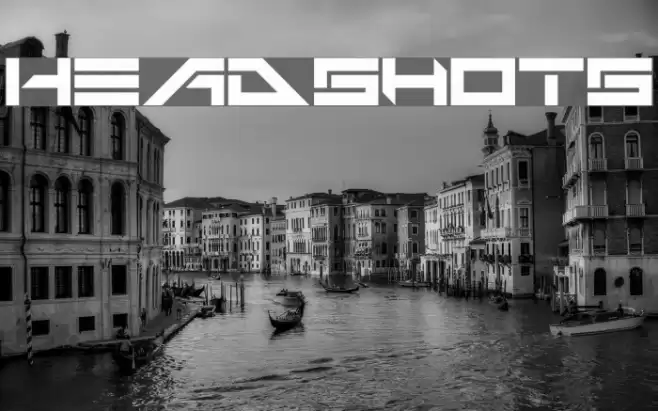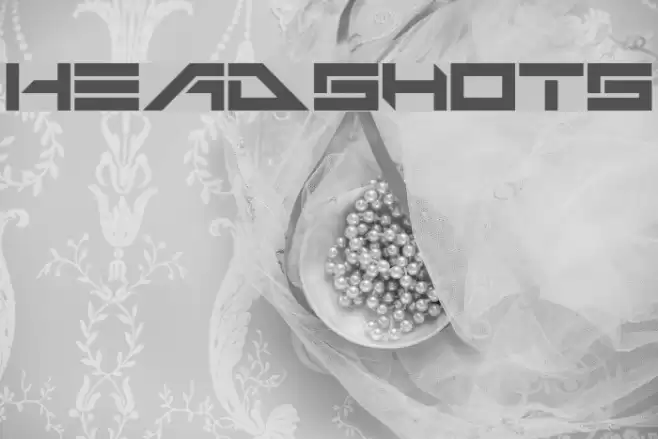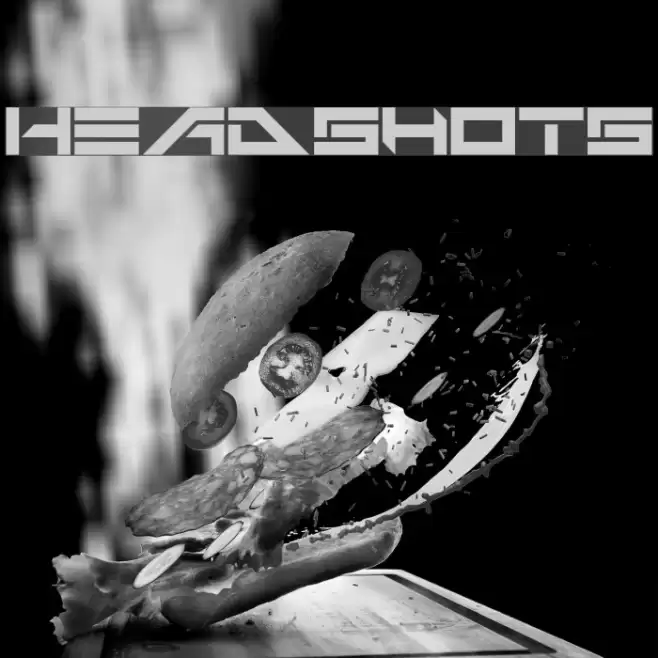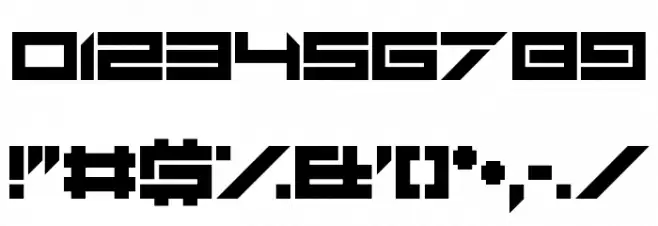
This font features a futuristic and geometric design, characterized by sharp angles and bold, block-like structures. Each letter and number is crafted with precision, creating a sense of movement and energy. The uppercase and lowercase letters maintain a consistent style, with unique cuts and lines that give the font a distinct, modern appearance. The numbers and special characters follow the same design principles, ensuring uniformity across all glyphs. This font is ideal for projects that require a strong visual impact and a contemporary aesthetic.
A futuristic, geometric font with bold, angular designs from Uncategorized fonts.
- Proposed Projects: Ideal for sci-fi themed projects, video game titles, tech branding, and modern posters.